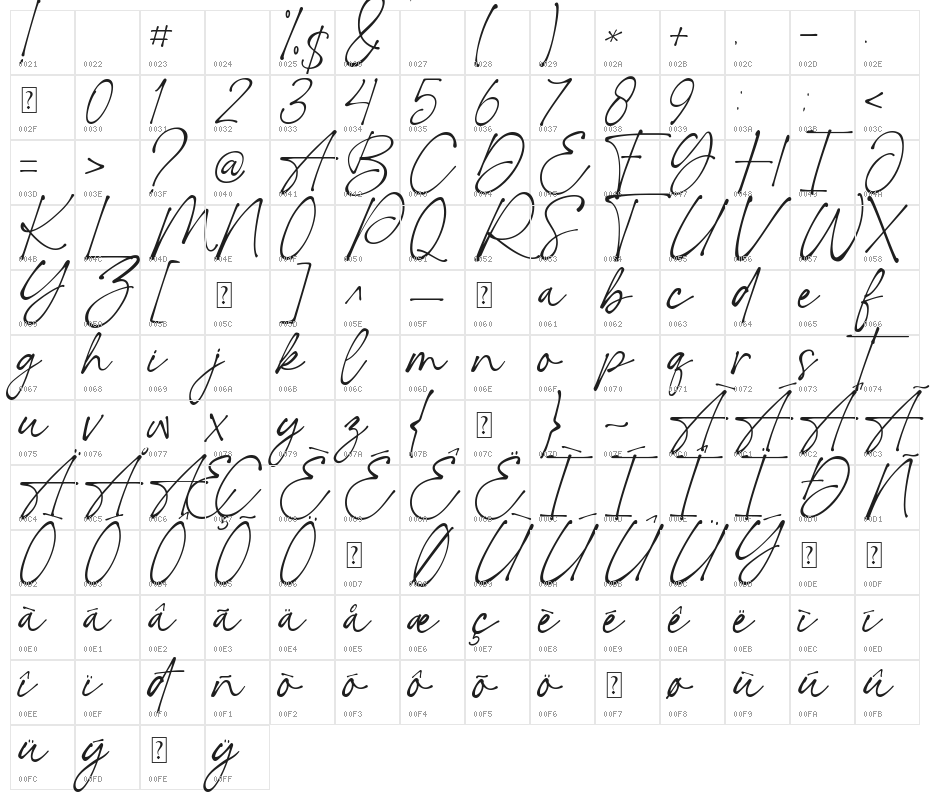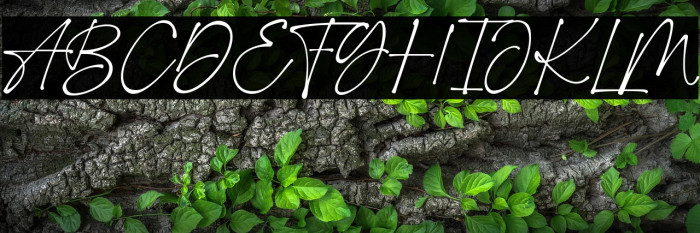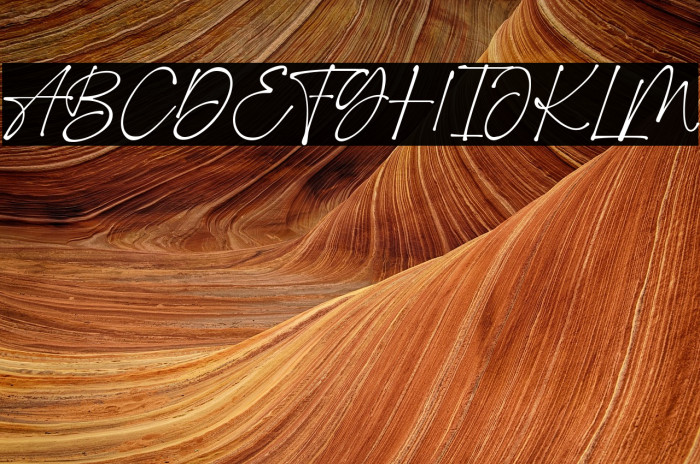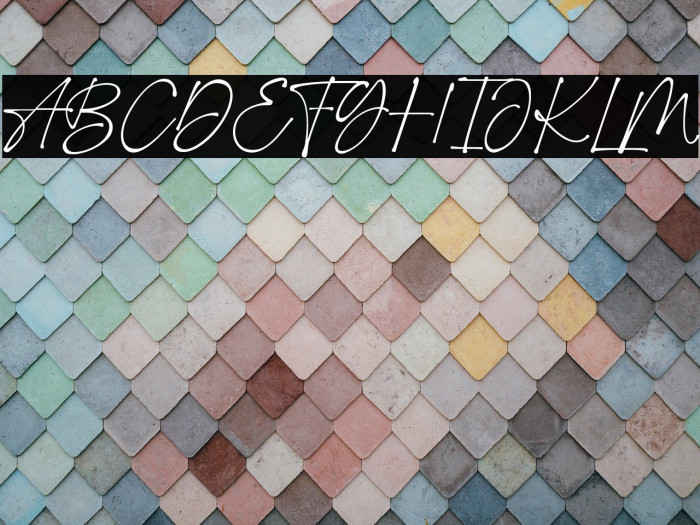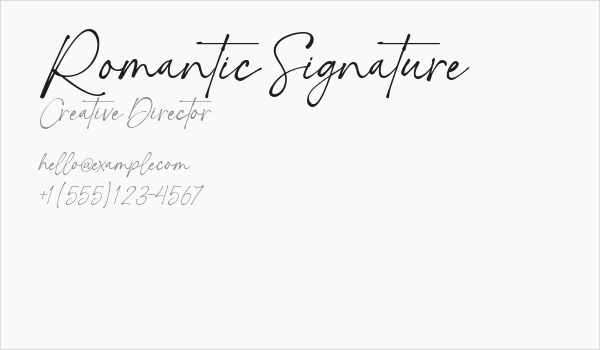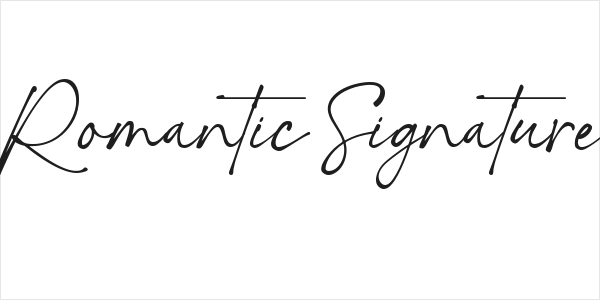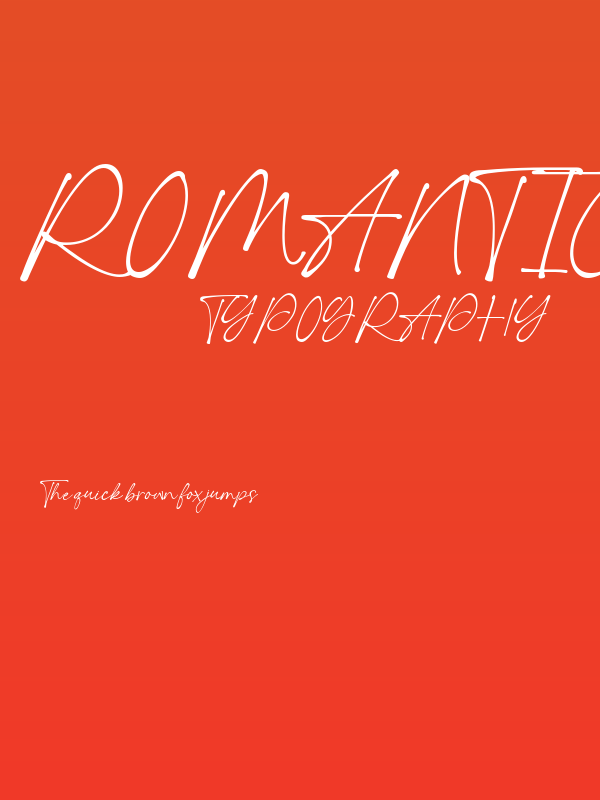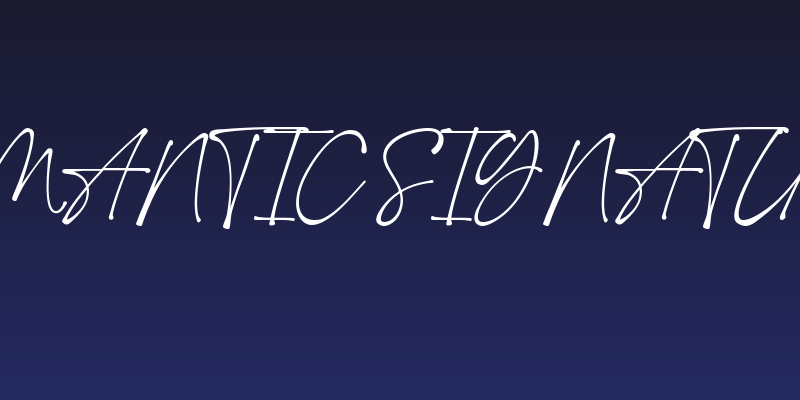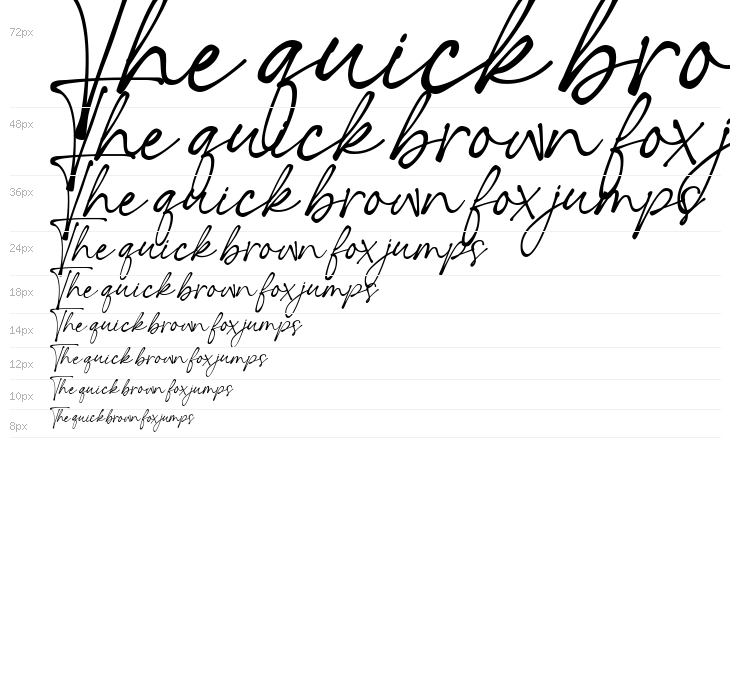
Romantic Signature Font
Romantic Signature Description
This font exudes a sense of elegance and fluidity, characterized by its cursive, handwritten style. The uppercase letters are tall and slender, with a slight slant that adds a dynamic feel. The lowercase letters are more rounded and connected, enhancing the script-like appearance. The numerals are consistent with the overall style, maintaining the same flowing lines. Special characters are integrated seamlessly, ensuring versatility in various applications. The font's overall aesthetic is romantic and sophisticated, making it ideal for projects that require a personal touch.
| Overall Style | Romantic, Elegant |
| Proposed Projects | Ideal for wedding invitations, personal branding, greeting cards, and romantic-themed designs. |